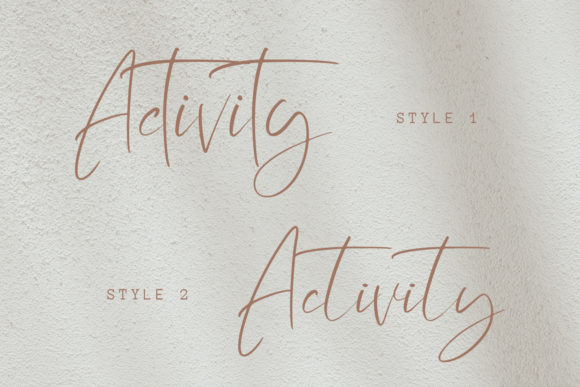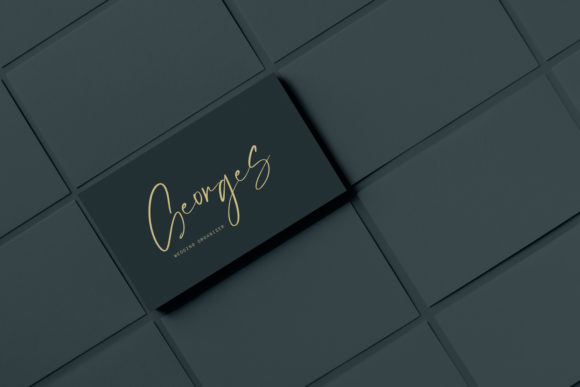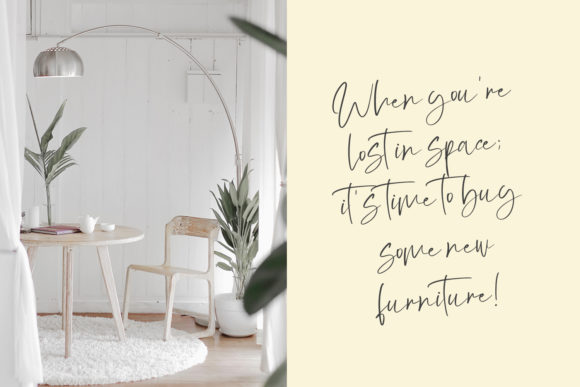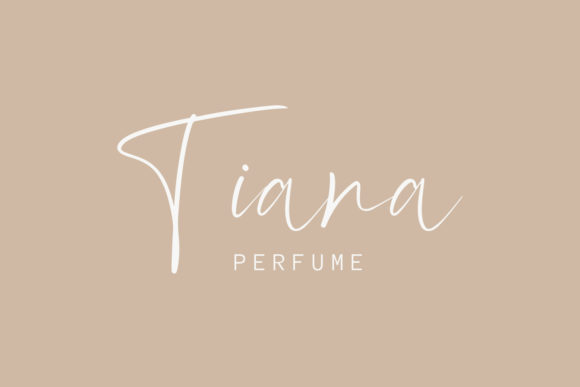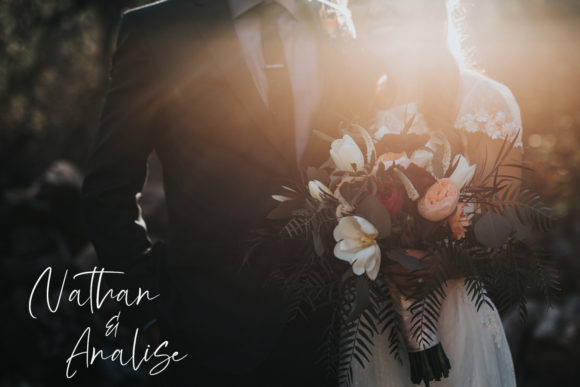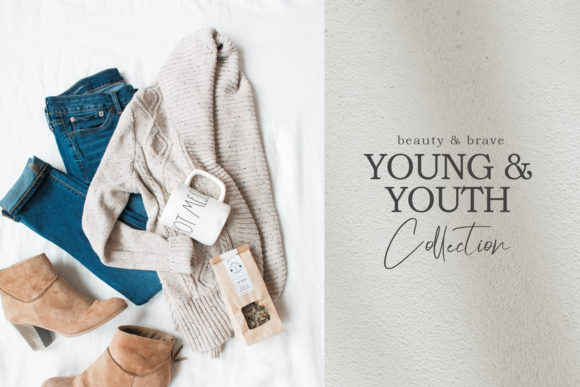
Introducing Activity Font: Elevate Your Designs with a Smooth and Unique Handwritten Style
Are you tired of using the same old fonts in your designs? Do you want to add a bold and fresh flavor to your creative projects? Look no further than Activity Font, a smooth and unique handwritten font that’s perfect for designers and crafters alike. In this article, we’ll dive into the features and benefits of Activity Font, and explore how it can take your designs to the next level.
What is Activity Font?
Activity Font is a carefully crafted handwritten font that’s designed to add a touch of personality to any design project. With its smooth and flowing lines, this font is perfect for creating bold and eye-catching designs that stand out from the crowd. Whether you’re working on a logo, a poster, or a digital project, Activity Font is the perfect choice for designers who want to add a unique and creative twist to their work.
Key Features of Activity Font
- Smooth and Unique Handwritten Style: Activity Font features a smooth and unique handwritten style that’s perfect for creating bold and eye-catching designs.
- Bold Flavor: This font adds a bold flavor to any design project, making it perfect for designers who want to create striking and memorable designs.
- Versatile: Activity Font is a versatile font that can be used in a wide range of design projects, from logos and posters to digital projects and more.
- Easily Readable: Despite its bold and unique style, Activity Font is easily readable, making it perfect for designs that require a clear and concise message.
Benefits of Using Activity Font
So why choose Activity Font for your design projects? Here are just a few benefits of using this amazing font:
- Adds Personality to Your Designs: Activity Font adds a touch of personality to your designs, making them stand out from the crowd and helping you to establish a unique brand identity.
- Increases Engagement: The bold and eye-catching style of Activity Font is perfect for grabbing attention and increasing engagement with your audience.
- Perfect for Creative Projects: Whether you’re working on a logo, a poster, or a digital project, Activity Font is the perfect choice for creative projects that require a unique and bold design.
- Easy to Use: Activity Font is easy to use and can be easily integrated into your design projects, saving you time and effort.
How to Use Activity Font in Your Designs
Using Activity Font in your designs is easy. Here are a few tips to get you started:
- Pair it with Other Fonts: Activity Font pairs well with other fonts, making it easy to create striking and memorable designs.
- Experiment with Different Sizes: Experiment with different sizes and styles to find the perfect look for your design project.
- Use it for Headings and Titles: Activity Font is perfect for headings and titles, making it easy to create bold and eye-catching designs.
In conclusion, Activity Font is a smooth and unique handwritten font that’s perfect for designers and crafters who want to add a bold and fresh flavor to their design projects. With its smooth and flowing lines, this font is perfect for creating bold and eye-catching designs that stand out from the crowd. Whether you’re working on a logo, a poster, or a digital project, Activity Font is the perfect choice for designers who want to add a unique and creative twist to their work.